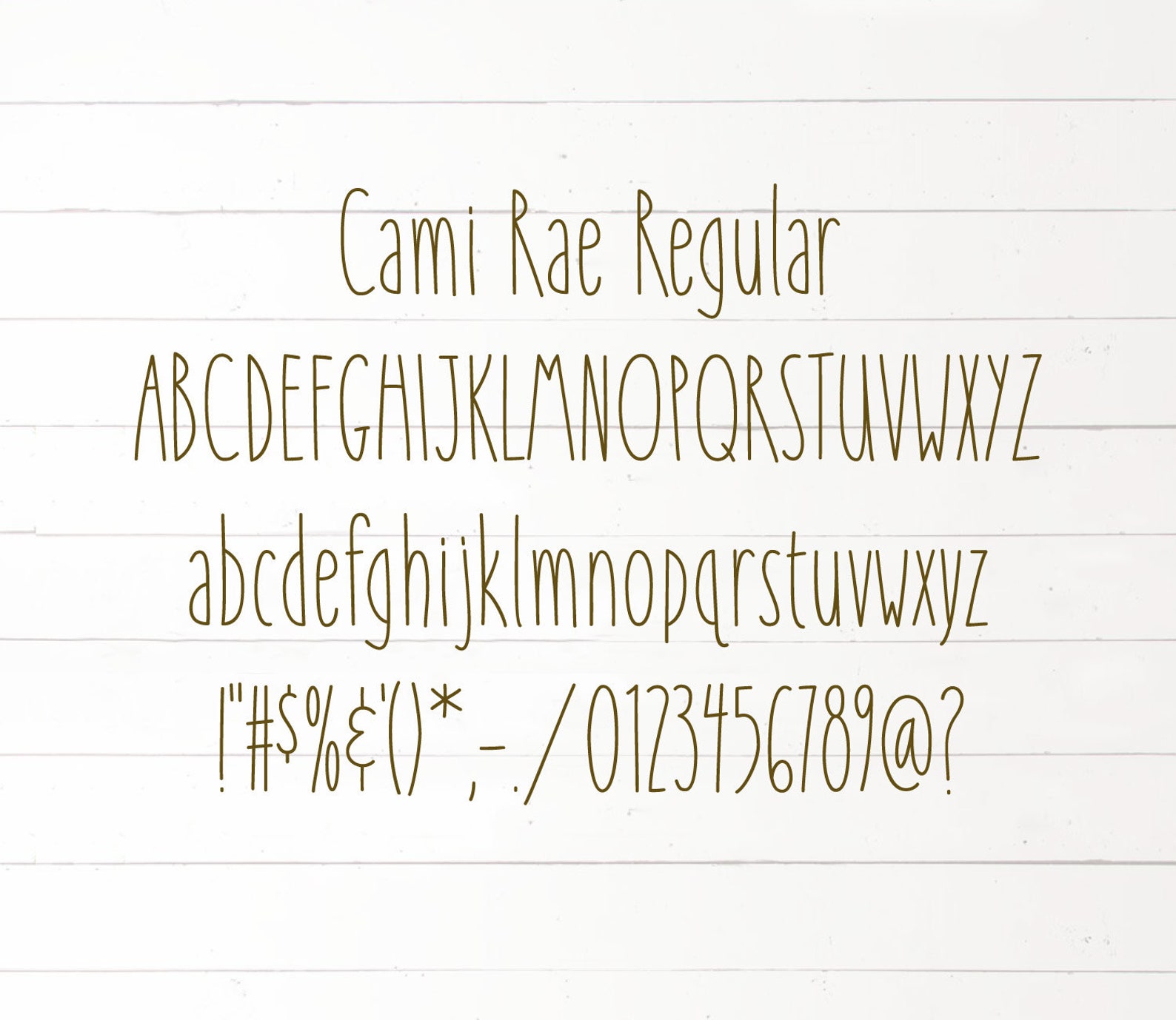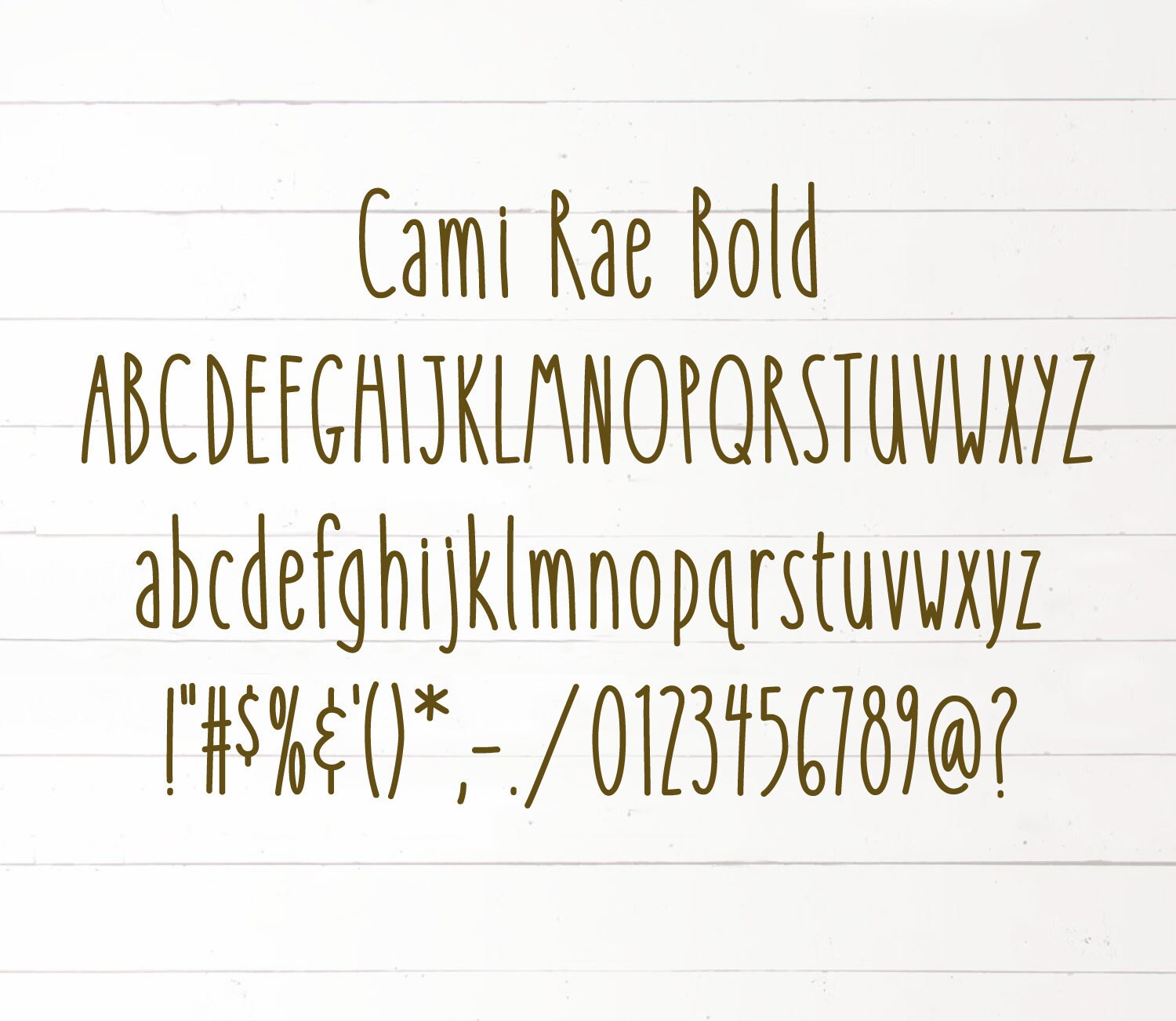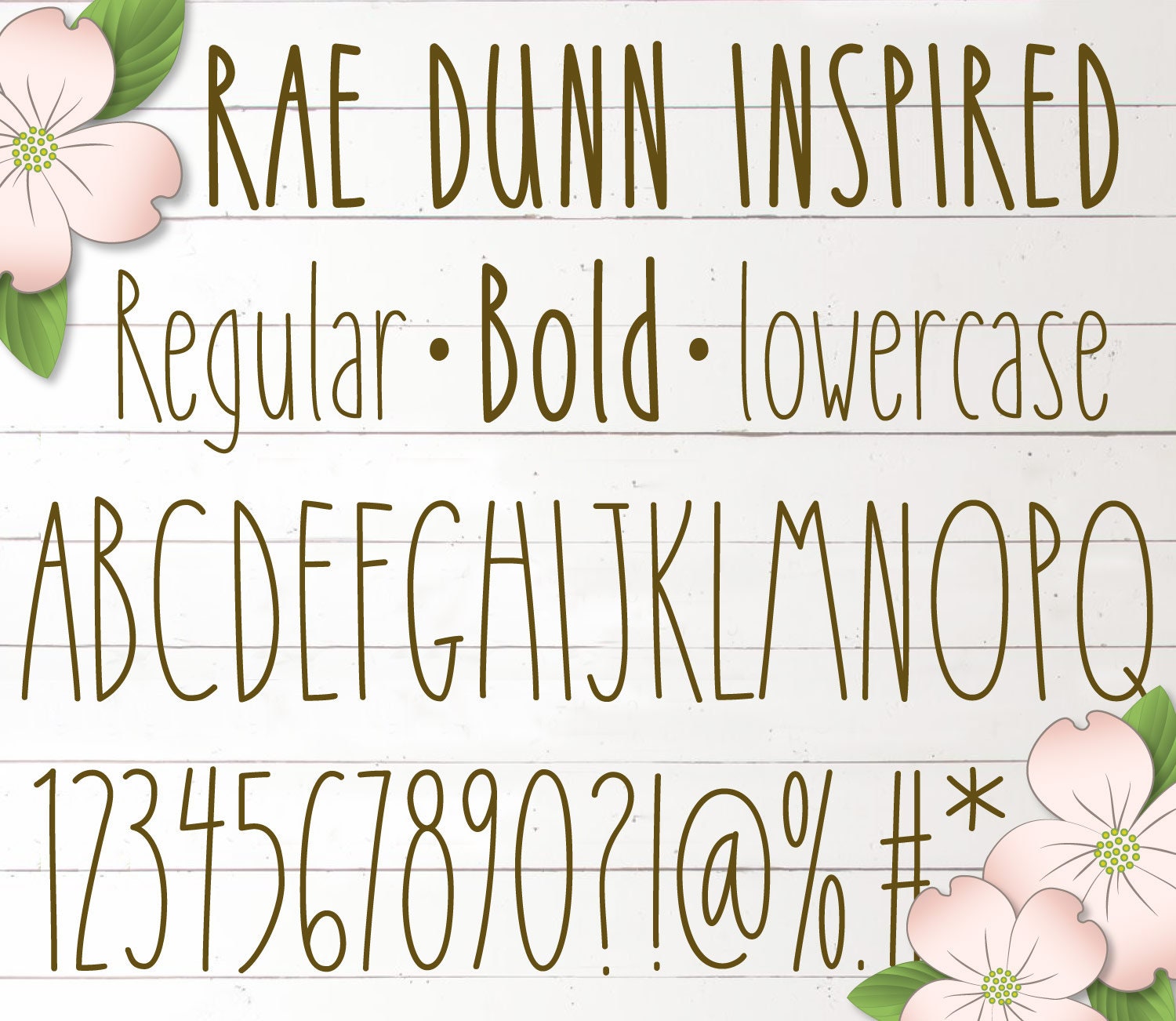
Cami Rae Font
Cami Rae Font - Web cami rae font is a sleek handwritten typeface designed and published by craftthings. Web may 15, 2019 at 02:42. Rae dunns newer font is the super villain. It comes with fun and unique.